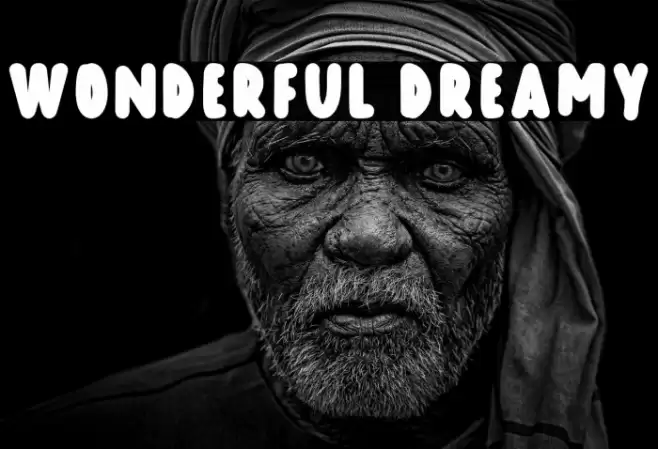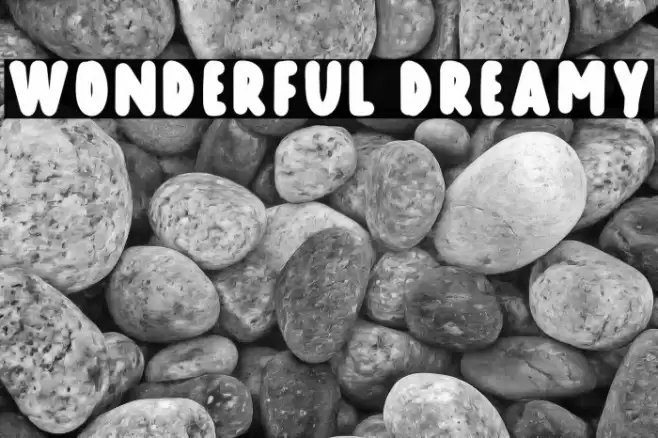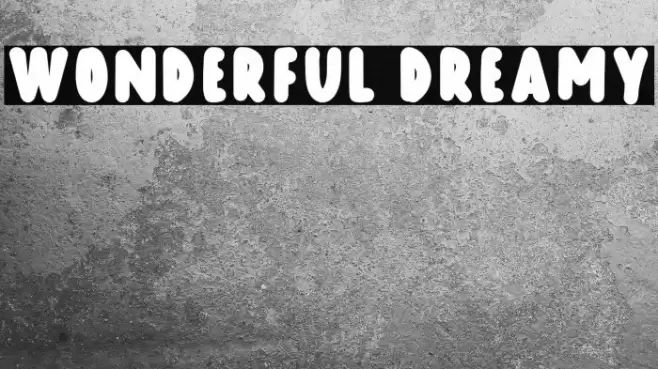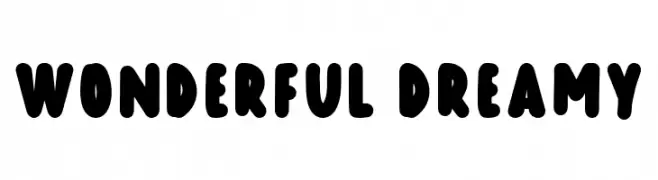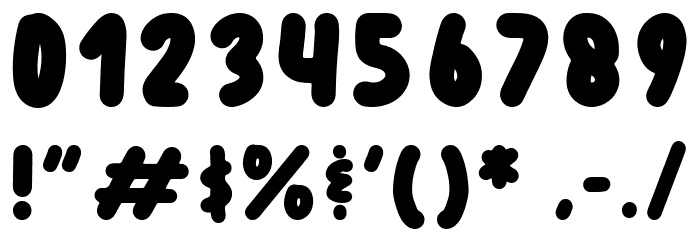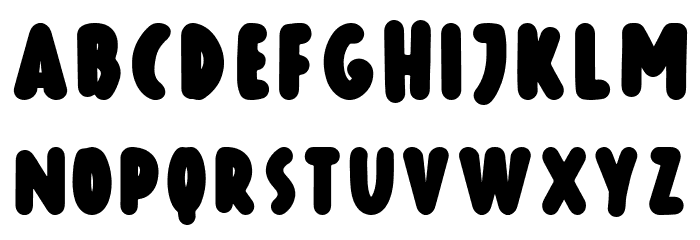
Wonderful Dreamy Font
Wonderful Dreamy Description
This playful and bold font features rounded, bubbly characters that exude a sense of fun and whimsy. Each letter is crafted with a thick, uniform stroke, giving it a substantial presence on the page. The characters are slightly condensed, enhancing their compact and cohesive appearance. The font maintains a consistent weight throughout, ensuring readability while adding a touch of charm. Its unique style makes it ideal for projects that require a lively and engaging aesthetic. The font's rounded edges and smooth curves contribute to its friendly and approachable feel, making it suitable for a variety of creative applications.
A playful, bold font with rounded, bubbly characters and a whimsical style from Uncategorized fonts.
- Font: Wonderful Dreamy
- Proposed Projects: Ideal for children's books, playful branding, party invitations, and creative posters.
- Width: Condensed
- Overall Style: Playful